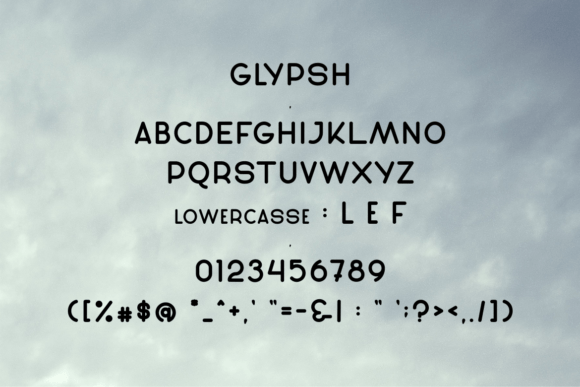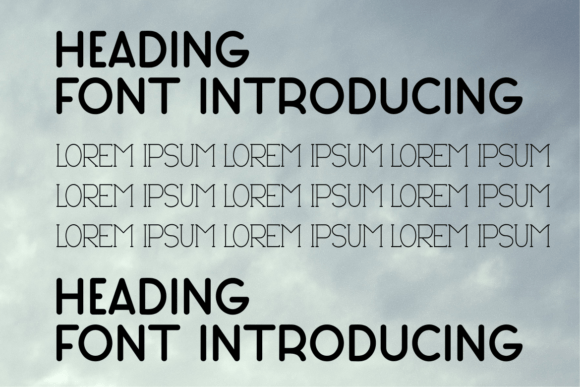
Introduction to Merlyco Font
This font is dedicated to the top of a project in a product introduction paper.
Usually, a font like this is used for things that don’t require many words It is at the top, bottom, or motivational words, the title of the company’s vision and mission – meaning this is pure head font.
Merlyco Font offers exceptional quality and versatility, making it a valuable addition to your design toolkit. Whether you’re creating for personal projects or commercial use, Merlyco Font delivers professional results.